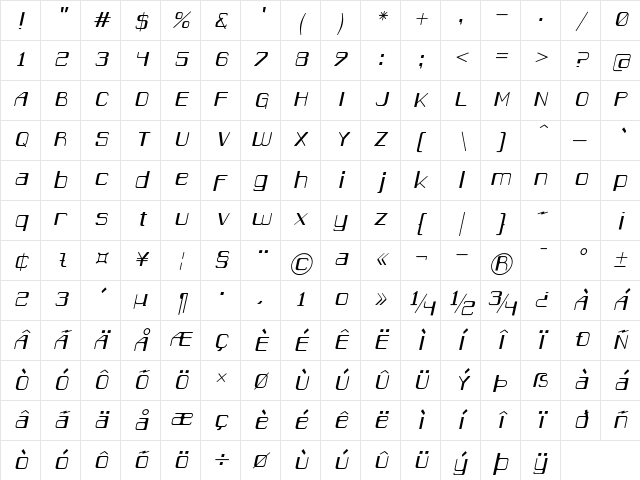
CaracasLG is a composed and adaptable typeface that performs quietly and consistently across a wide range of design contexts. The slanted form adds forward momentum and visual energy.